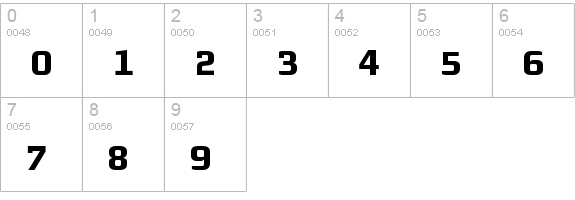
MorganAvec BoldCaps Font Details
MorganAvec BoldCaps is a stunning and versatile display font that exudes elegance and sophistication. With its bold and distinctive letterforms, MorganAvec BoldCaps is perfect for creating eye-catching headlines, titles, and logos that command attention. This font is ideal for projects that require a touch of glamour and luxury. Best of all, MorganAvec BoldCaps is available for free download at FontsMarket.com. Whether you're a graphic designer, a brand owner, or a creative enthusiast, this font is a must-have addition to your collection. Don't miss out on the opportunity to elevate your designs with the timeless beauty of MorganAvec BoldCaps. Download it today and let your creativity shine!